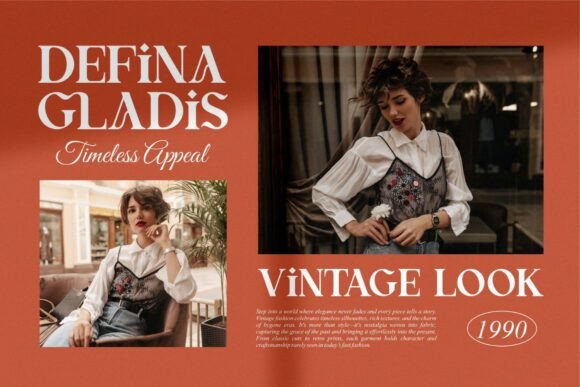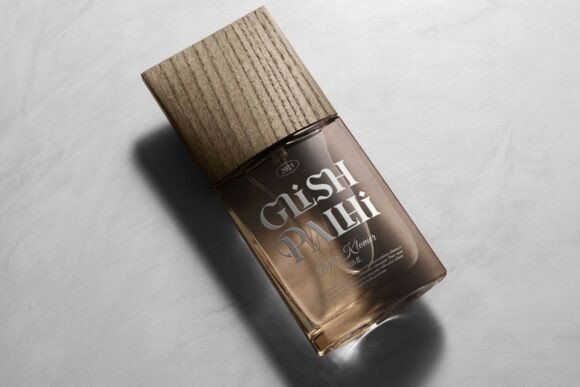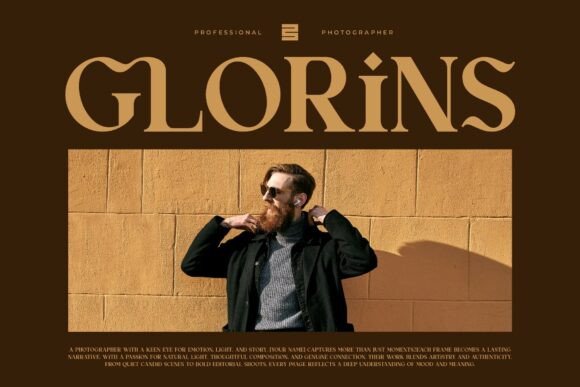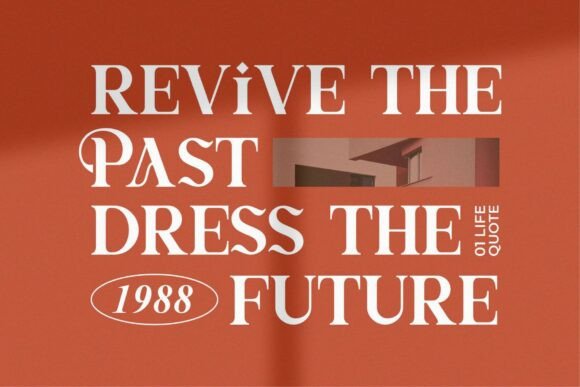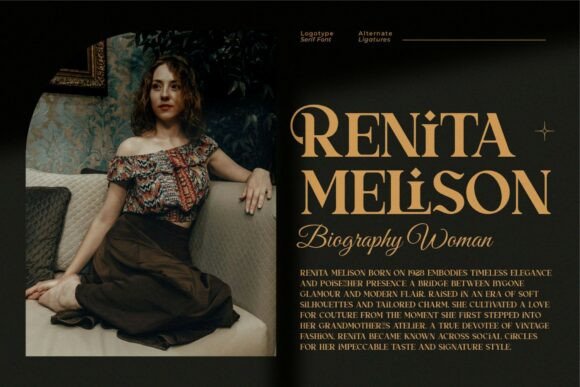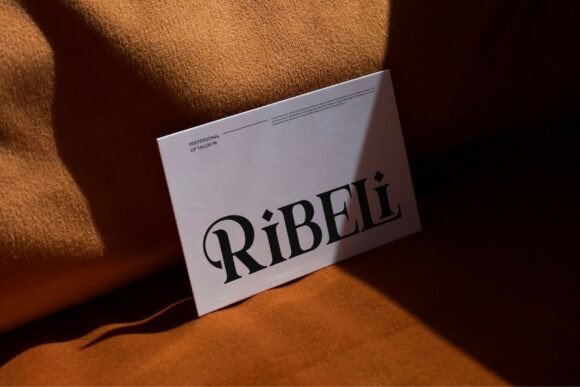
Glinke Font: Elevate Your Designs with Modern Elegance
In the world of typography, a font can make or break a design. For designers and crafters seeking a modern and classy touch, Glinke Serif font is an excellent choice. This stunning serif font is perfect for creating visually appealing branding and logo designs that exude sophistication and elegance.
What is Glinke Serif Font?
Glinke Serif is a contemporary font type designed to add a touch of luxury to various design projects. Its beautiful character and smooth serif lines make it an ideal choice for designers looking to create stunning visual content. Whether you’re working on invitation card designs, logos, movie titles, or book covers, Glinke Serif font is sure to impress.
Key Features of Glinke Serif Font
- Modern and Classy Design: Glinke Serif boasts a sleek and sophisticated design that instantly elevates any project.
- Smooth Serif Lines: The font’s smooth serif lines add a touch of elegance, making it perfect for high-end branding and logo designs.
- Stylish Ligatures: Glinke Serif font features stylish ligatures that add a creative twist to your designs.
- Versatile: This font is suitable for a wide range of design projects, including invitation cards, logos, movie titles, book covers, and more.
Why Choose Glinke Serif Font?
With so many fonts available, why choose Glinke Serif? Here are a few compelling reasons:
- Unique Character: Glinke Serif font has a distinct character that sets it apart from other serif fonts.
- Elegant and Sophisticated: The font’s smooth serif lines and stylish ligatures create a sophisticated look that’s perfect for high-end designs.
- Easy to Read: Despite its elegant design, Glinke Serif font is easy to read, making it suitable for body text and headlines.
- Highly Versatile: This font can be used for a wide range of design projects, from branding and logos to movie titles and book covers.
Use Cases for Glinke Serif Font
Glinke Serif font is an excellent choice for various design projects, including:
- Branding and Logo Designs: Create stunning logos and branding materials that exude sophistication and elegance.
- Invitation Card Designs: Add a touch of luxury to your invitation cards with Glinke Serif font.
- Movie Titles and Posters: Create eye-catching movie titles and posters with this stylish serif font.
- Book Covers and Titles: Use Glinke Serif font to create beautiful book covers and titles that stand out.
- Business Cards: Elevate your business cards with a sophisticated and modern font.
Tips for Using Glinke Serif Font
To get the most out of Glinke Serif font, here are a few tips:
- Pair with Sans-Serif Fonts: Pair Glinke Serif font with sans-serif fonts for a stylish and modern look.
- Experiment with Font Sizes: Experiment with different font sizes to create visual hierarchy and emphasis.
- Use Ligatures: Take advantage of Glinke Serif font’s stylish ligatures to add a creative touch to your designs.
Glinke Serif font is a stunning and versatile font that’s perfect for designers and crafters seeking a modern and classy touch. With its smooth serif lines, stylish ligatures, and elegant design, this font is sure to elevate your designs and make them stand out. Whether you’re working on branding and logo designs, invitation cards, movie titles, or book covers, Glinke Serif font is an excellent choice.